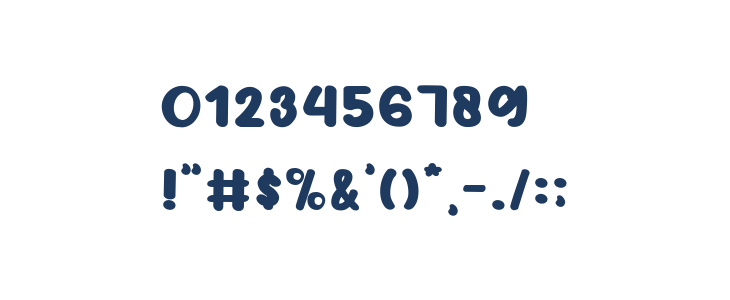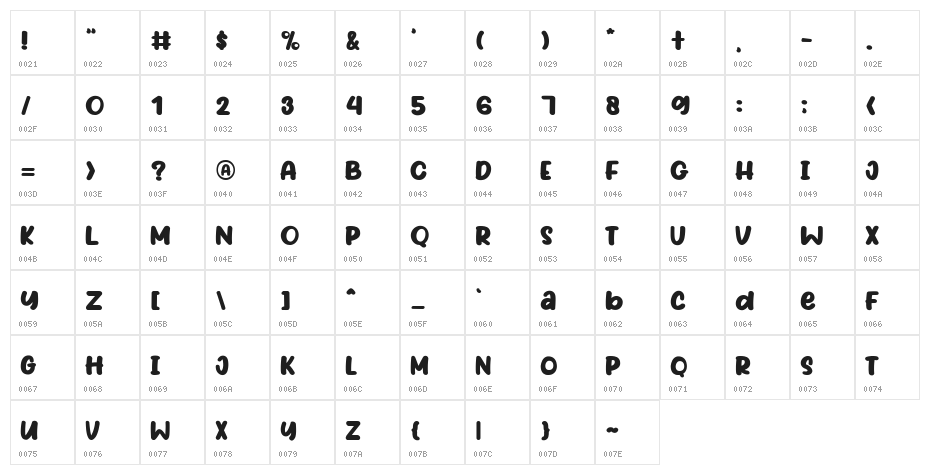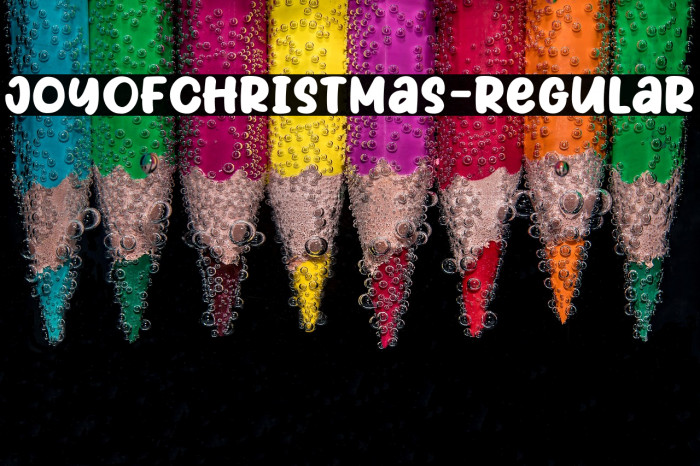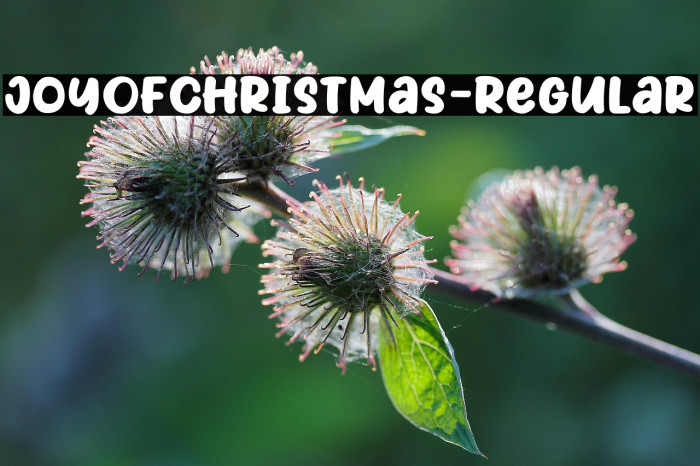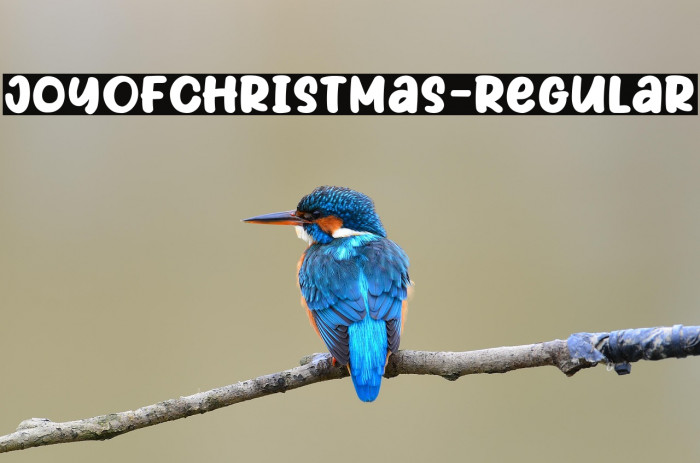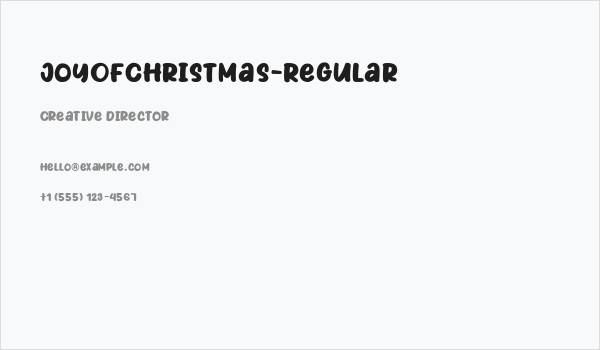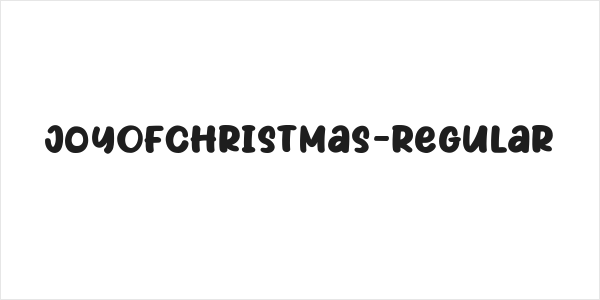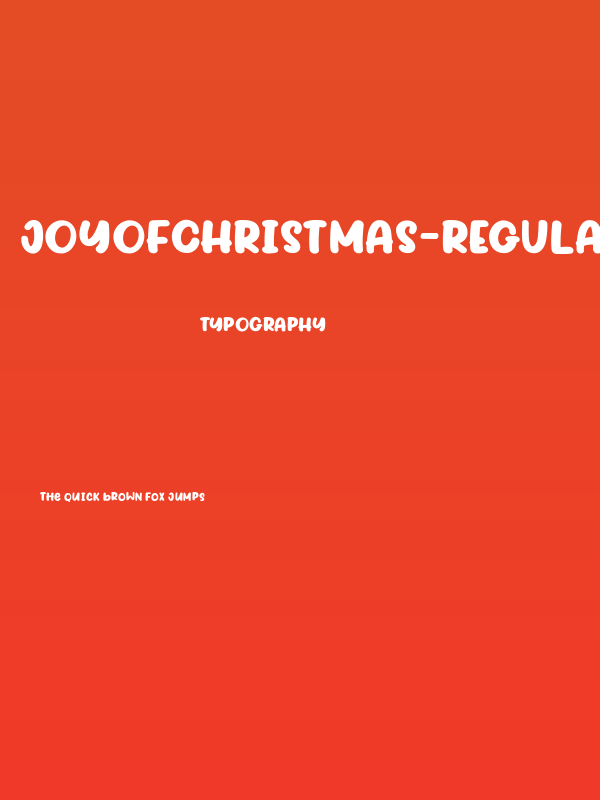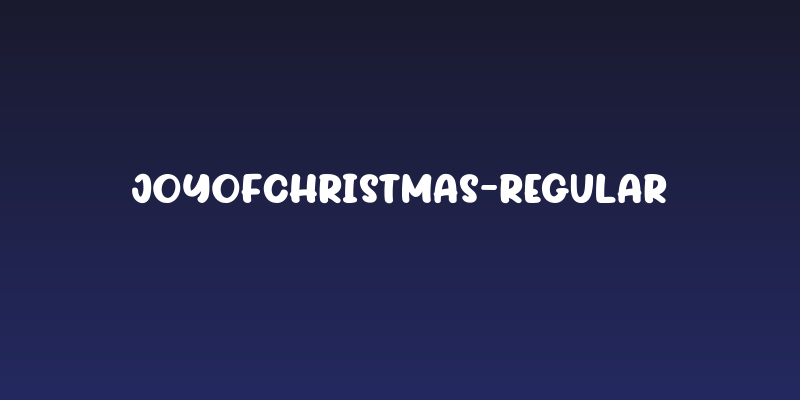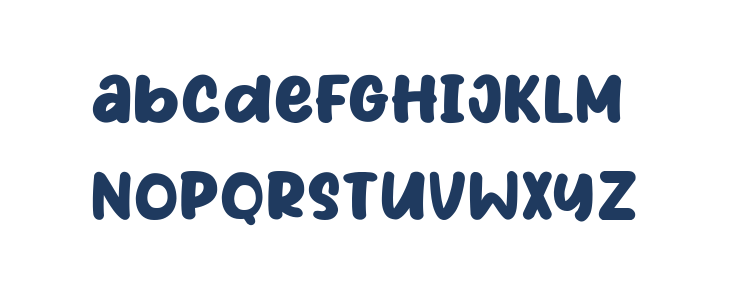
JoyOfChristmas-Regular Font
JoyOfChristmas-Regular Description
This playful and whimsical font features bold, rounded characters with a hand-drawn appearance. The letters are thick and have a bubbly, joyful style that evokes a sense of fun and creativity. The uppercase and lowercase letters maintain a consistent weight, contributing to the font's cohesive look. The numbers and special characters are designed with the same playful aesthetic, making them perfect for festive or informal projects. The overall design is approachable and friendly, making it suitable for a variety of creative applications.
| Proposed Projects | Ideal for holiday cards, children's books, party invitations, and playful branding. |